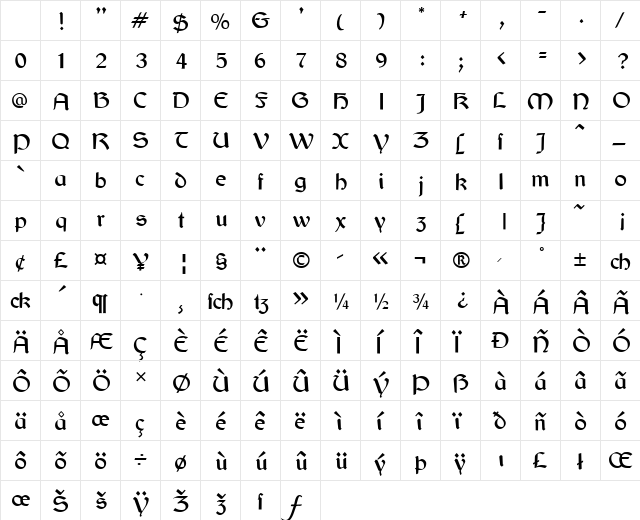
Complete Bretagne Gaelic Regular glyph index. Displaying only characters natively supported by Bretagne Gaelic Regular font.
Bretagne Gaelic is a composed and adaptable typeface that performs quietly and consistently across a wide range of design contexts.